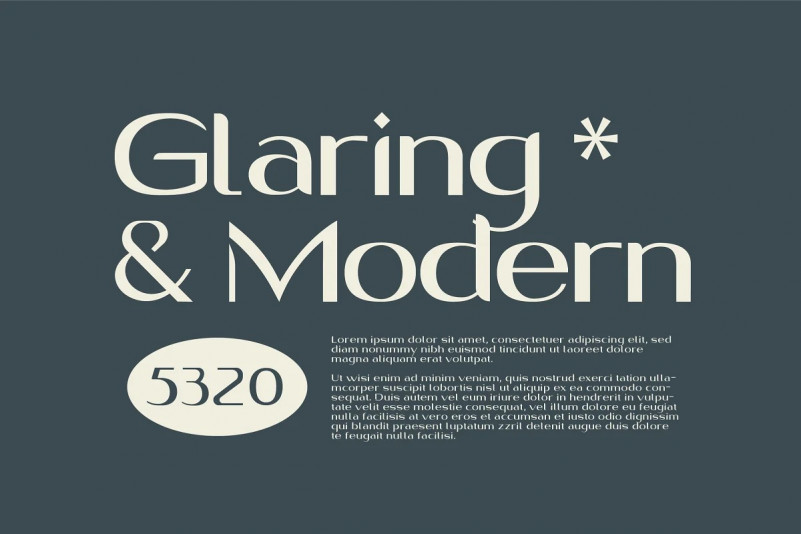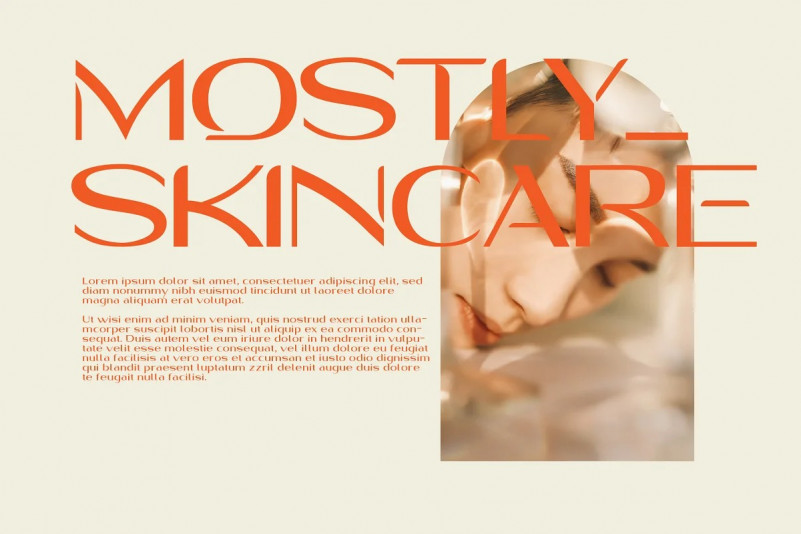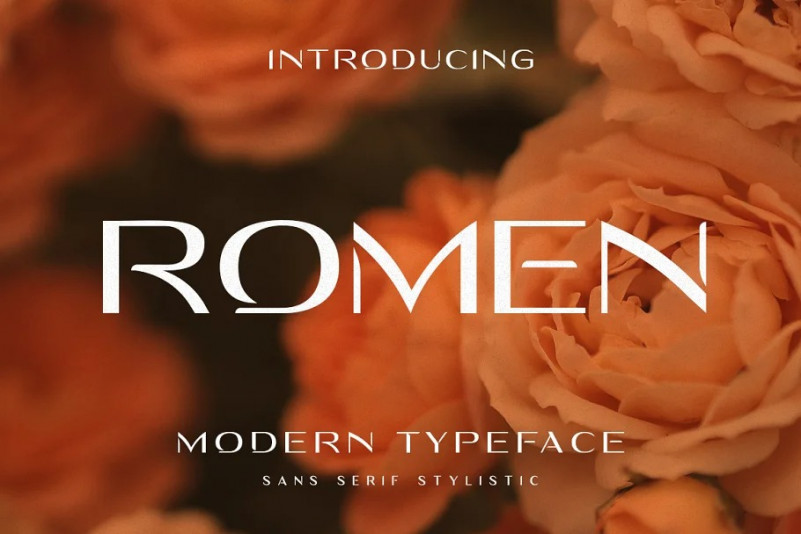
Romen Font
Romen modern Sans serif Font with lots of style alternatives to choose from. The bold is clean and simple.This font is specially designed for beauty product logo ! Have fun and create more.